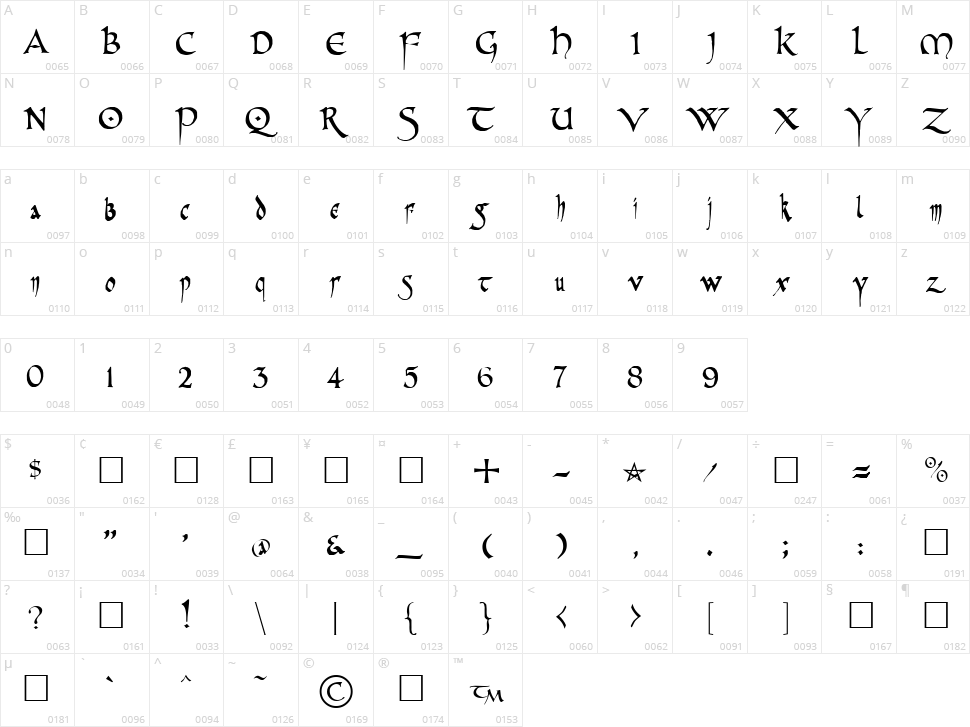
PR Celtic Narrow
This font contains some of the same capital letters as "PR uncial altcaps", but they are kerned to fit with these small letters in a dropped position. Words typed in all capitals in this font will give an unsatisfactory appearance. For such applications, please use "PR uncial altcaps", or PR uncial which offers one set of characters in two sizes
the following symbols are included in this font for sake of completeness;
The only special character in this font is an alternative "l" which can be seen by typing alt+0204.